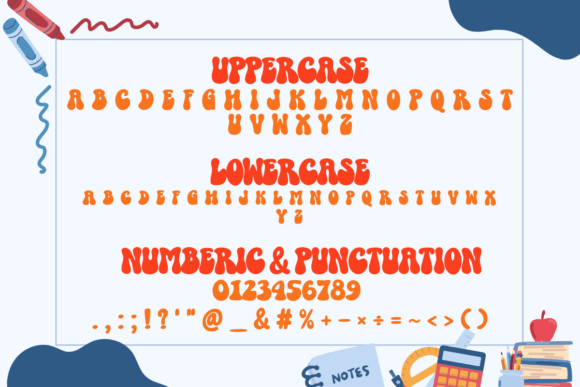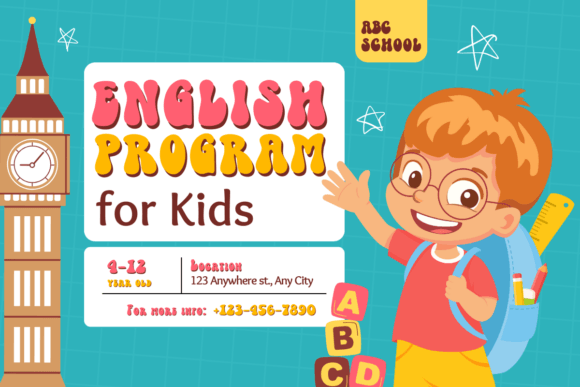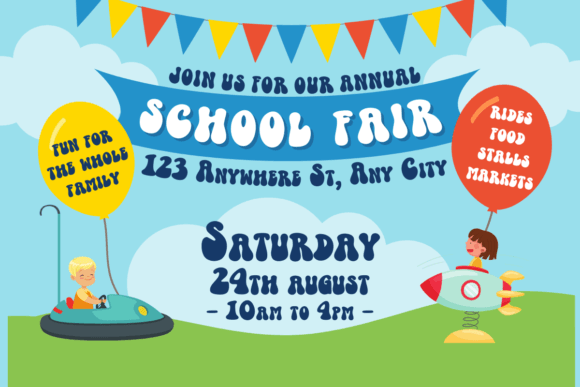
Groovy Teacher Font
Groovy Teacher is a handwritten display font. You can use it for taking notes, writing a diary, or making greeting cards. However, you can still use it for other designs such as banners content mugs cards shirts stationery social media posts, and more!